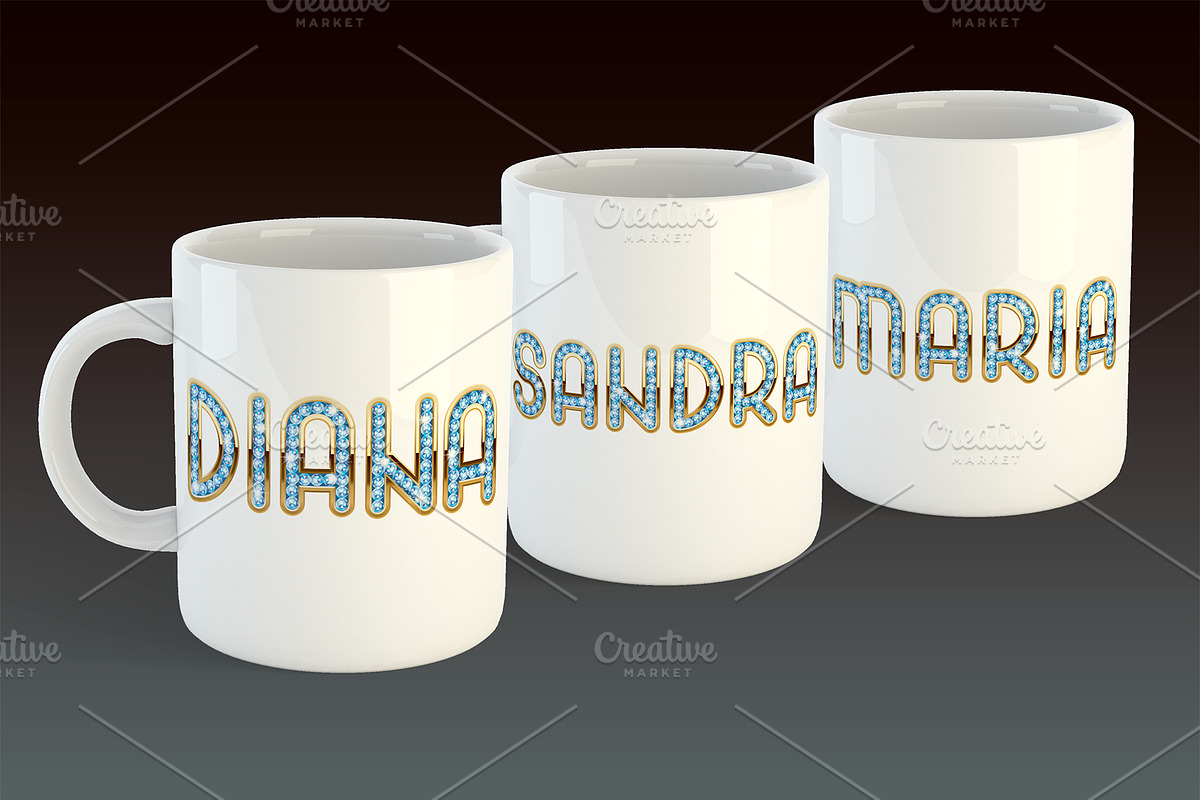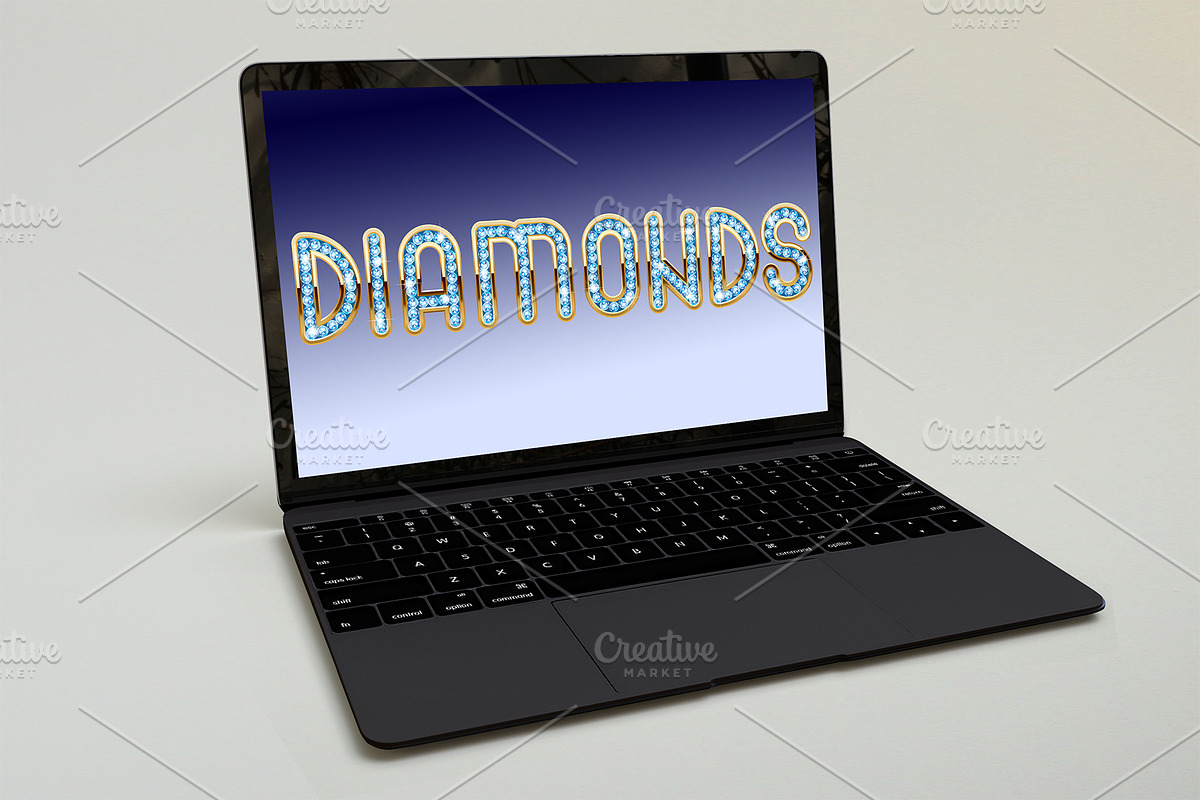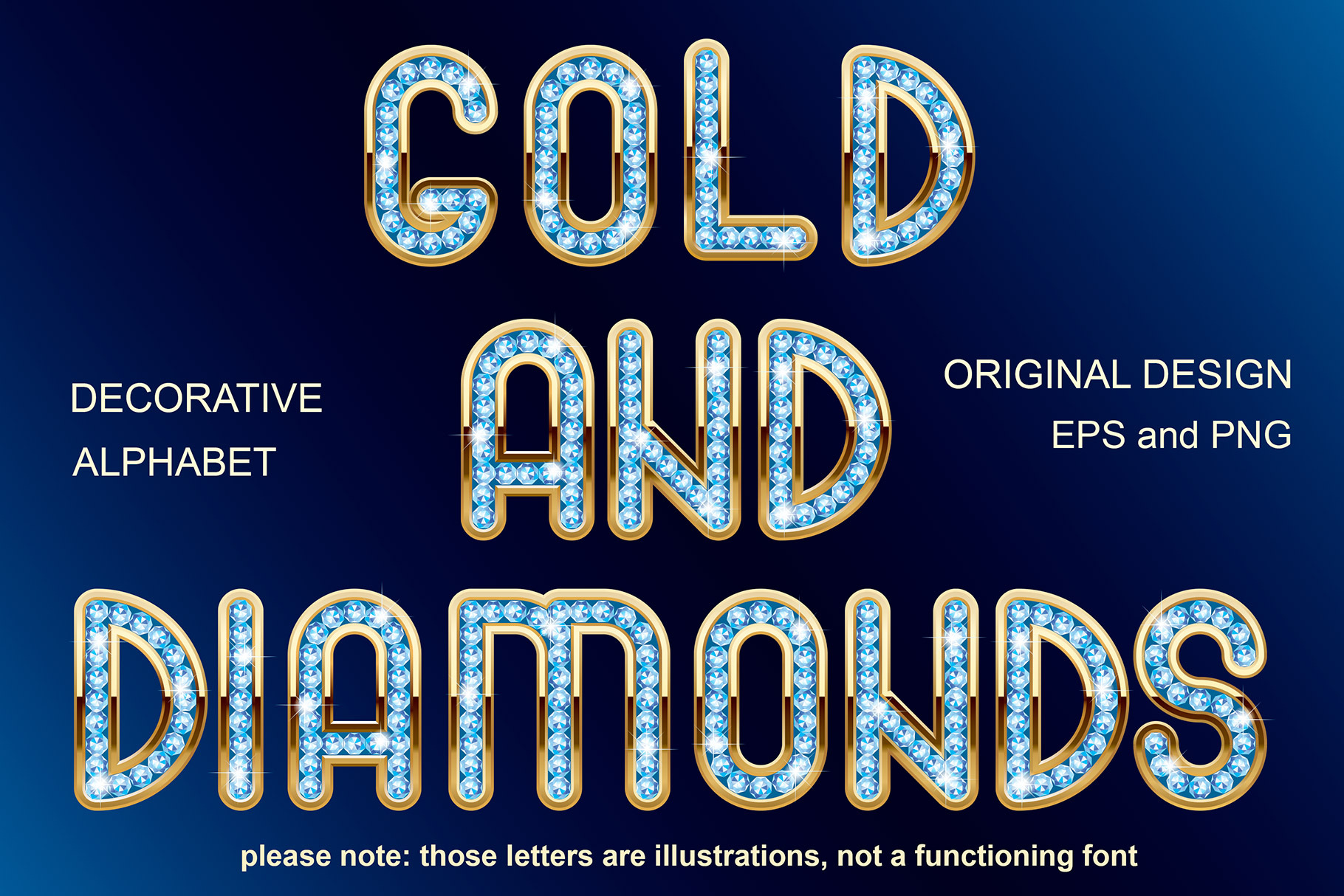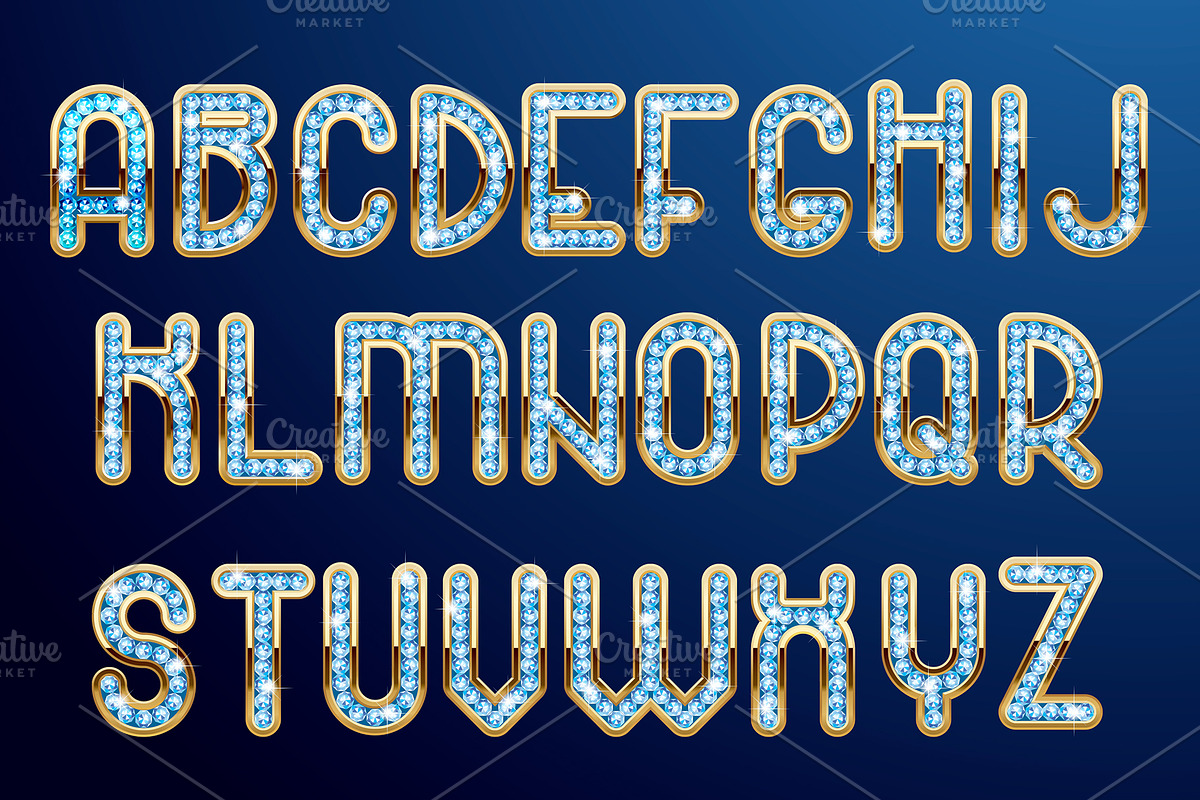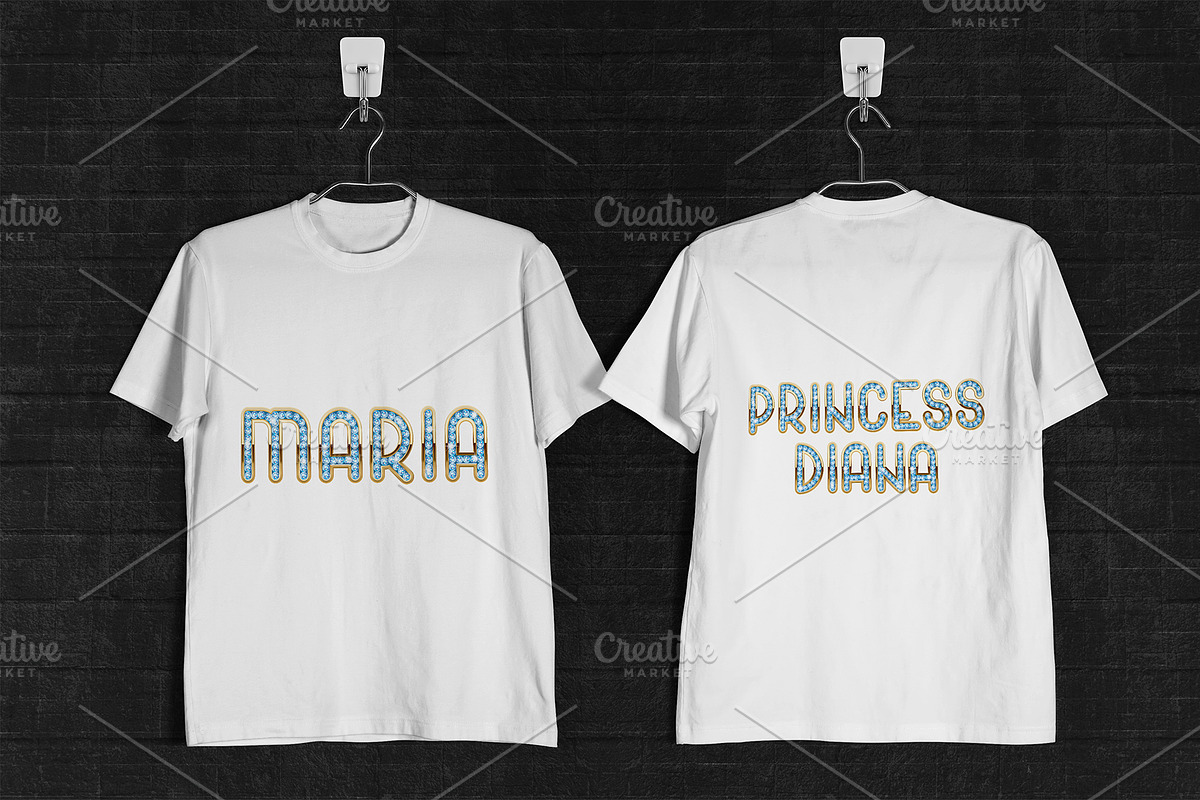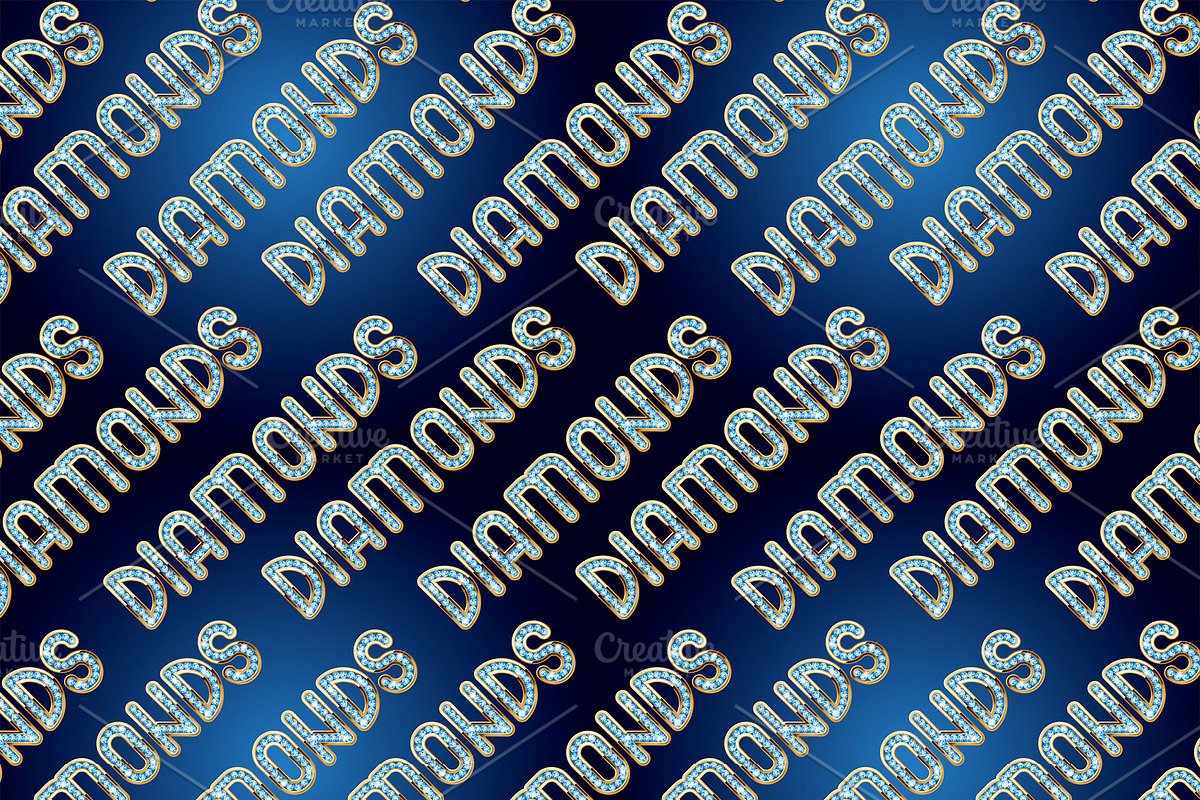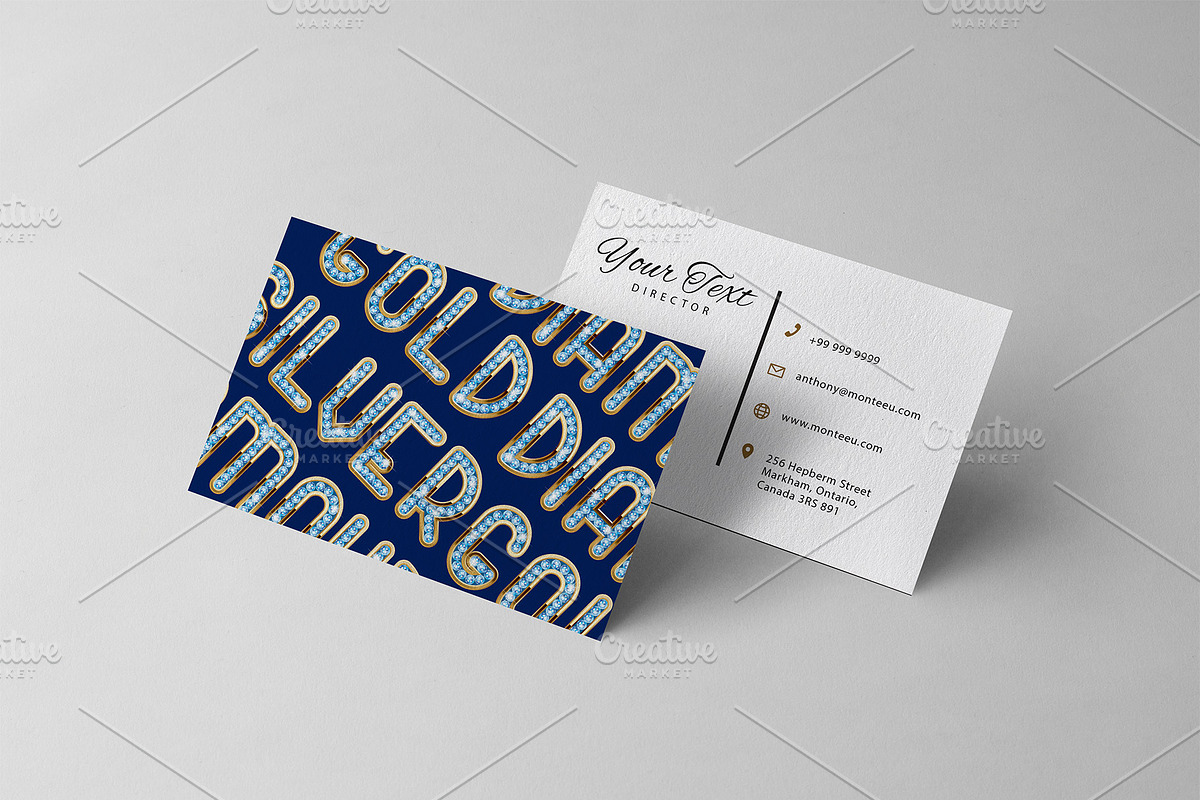
Diamonds and gold - unique font
Diamond and gold – only vector decorative alphabet. The inspiration is based on the diamond with its strict shapes, straight lines and depth of structure. An excellent option for decorating your design. 26 letters of english alphabet (EPS, PNG) - 26 Capital letters in order for you to create you own amazing designs! None of the mock ups or mock up images used in the above listing are included in purchase. These patterns and designs are available for both personal and commercial use (see extended license). If you have any issues please feel free to message us!
Please note: those letters are illustrations, not a functioning font!